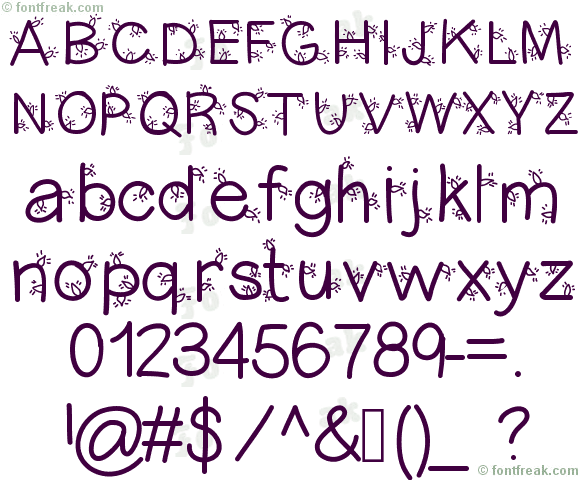
ChristmasLigtness
The ChristmasLigtness font by Vanessa Bays is a delightful decorative typeface that embodies the spirit of the holiday season. This unique font features a playful, handwritten style that captures the whimsical essence of Christmas. Characterized by its medium stroke weight and varying contrast, ChristmasLigtness conveys a sense of warmth and joy, making it perfect for festive designs. The letters are adorned with charming, decorative elements reminiscent of twinkling lights and snowflakes, giving the text a lively and enchanting appearance.
This font is ideal for a variety of holiday-themed projects. It shines brightly in applications such as Christmas cards, gift tags, and seasonal event invitations. Additionally, its cheerful tone makes it suitable for creating eye-catching social media graphics, holiday-themed website banners, and even festive restaurant menus. Small business owners looking to add a touch of charm to their branding during the holiday season will find this font particularly appealing.
Targeting graphic designers, content creators, and anyone looking to spread holiday cheer through their designs, ChristmasLigtness invites creativity and festivity. The font’s approachable style allows it to resonate with audiences of all ages, making it a versatile choice for both personal and commercial projects.
What truly sets the ChristmasLigtness font apart is its ability to evoke nostalgia and warmth. Its playful nature and unique decorative features make it a standout choice for anyone seeking to create memorable holiday-themed visuals. With the added benefit of a ChristmasLigtness font free download, users can easily incorporate this enchanting typeface into their projects, bringing a touch of holiday magic to their designs.